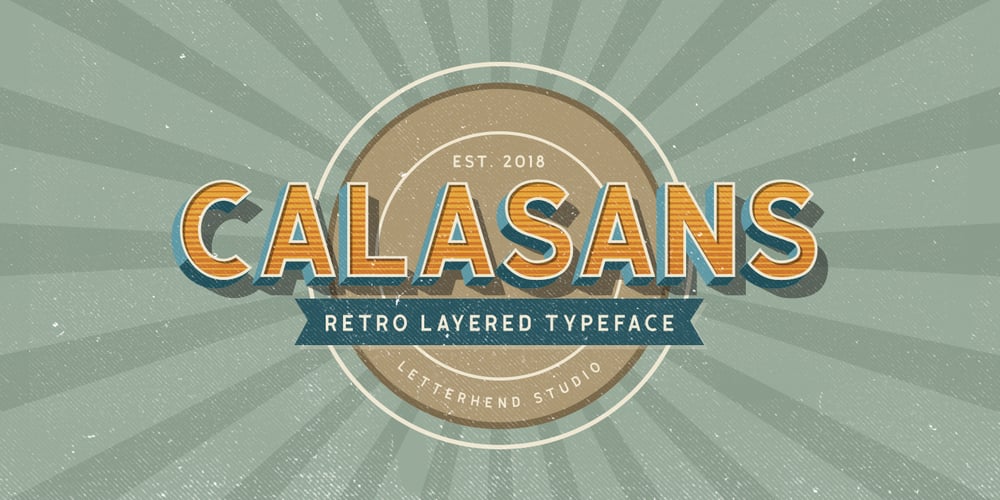
Calasans Font Family was designed by Hendry Juanda and published by Letterhend. Calasans contains 7 styles and family package options. Calasans is a sans serif font with 7 layered style. You can create a 3D look without using any add-ons, only with fonts! This font is suitable for a vintage poster, 3d type, or retro. Including numbers and punctuations, also support multi-language. Create your own 3D type now!